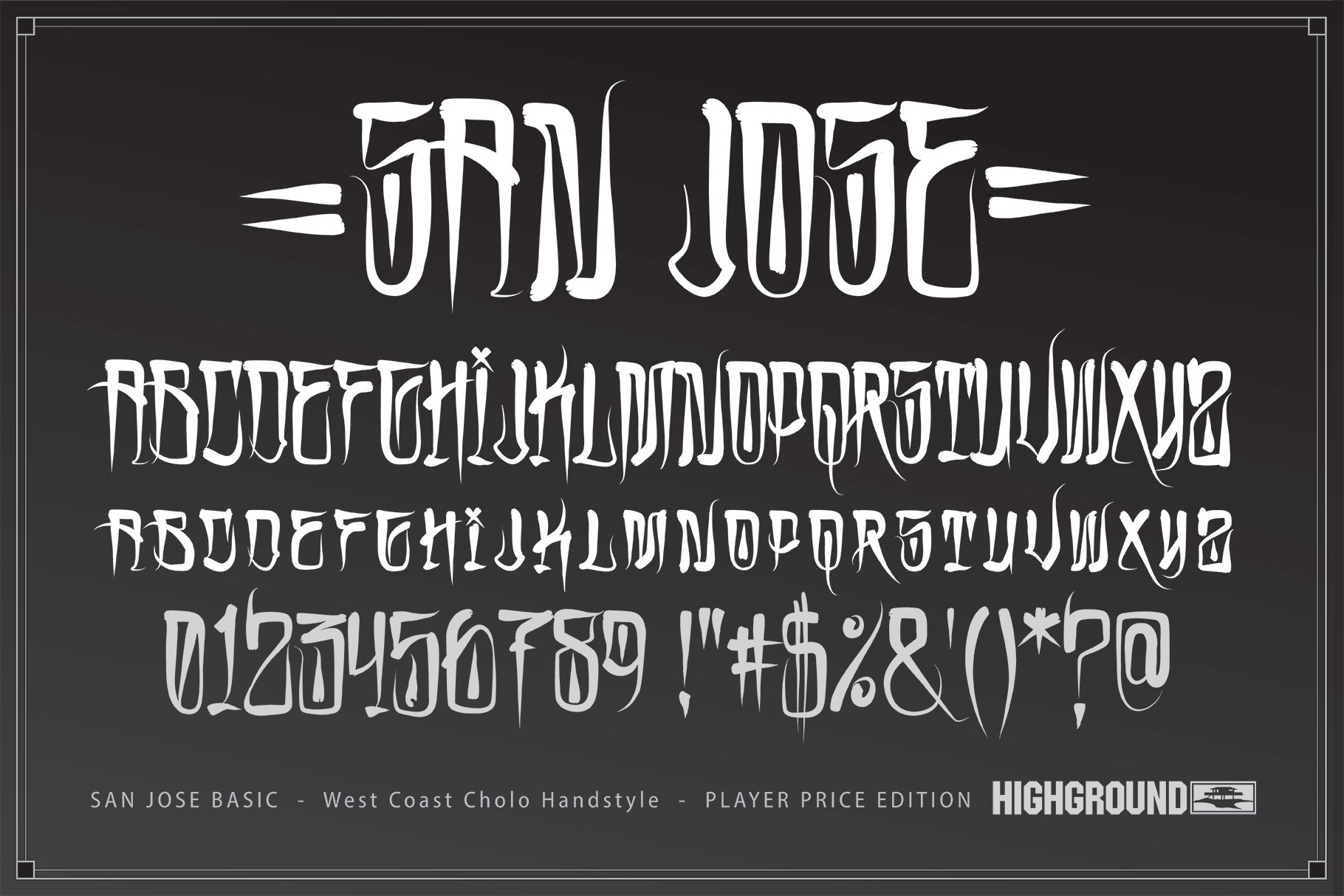
San Jose Basic Graffiti Font
This streamlined version of our San Jose font features the 2 Small-Caps alphabets from the Bold style as well as a generous helping of numbers, symbols, punctuation & more.